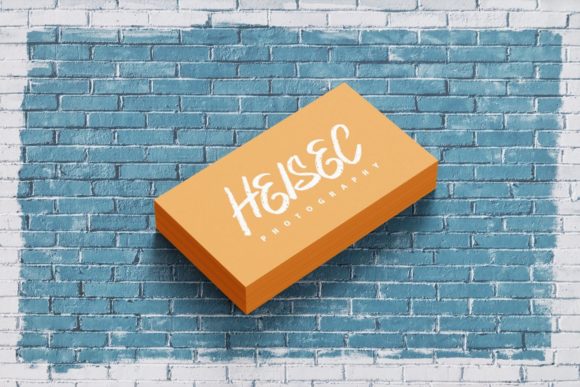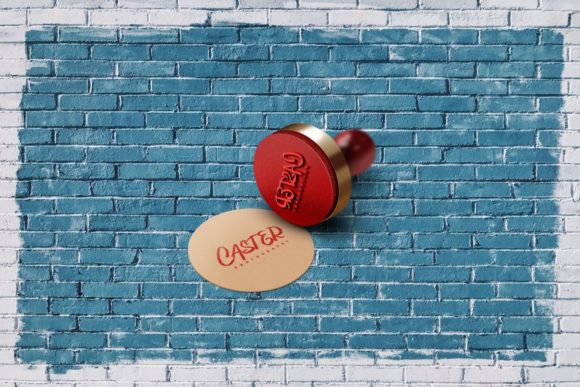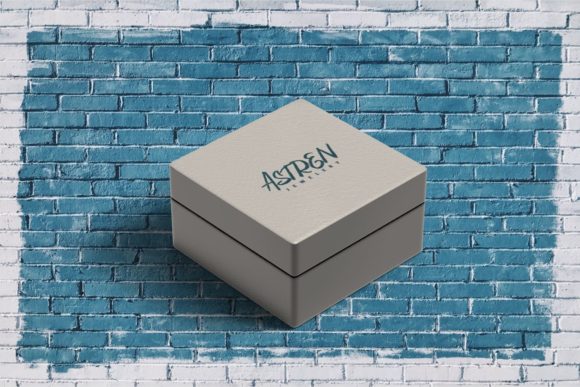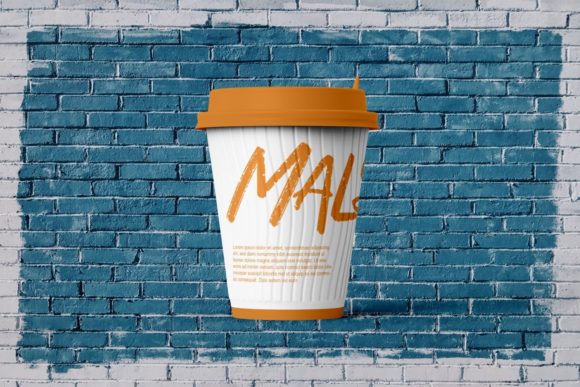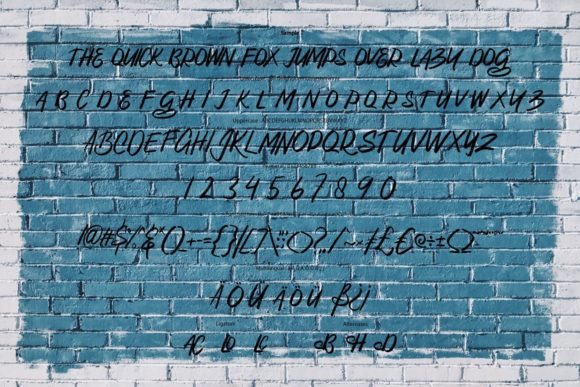
Rogies Font
About Rogies Font
Rogies is a casual and brushed handwritten font. No matter the topic, this font will be an incredible asset to your fonts’ library, as it has the potential to elevate any creation.